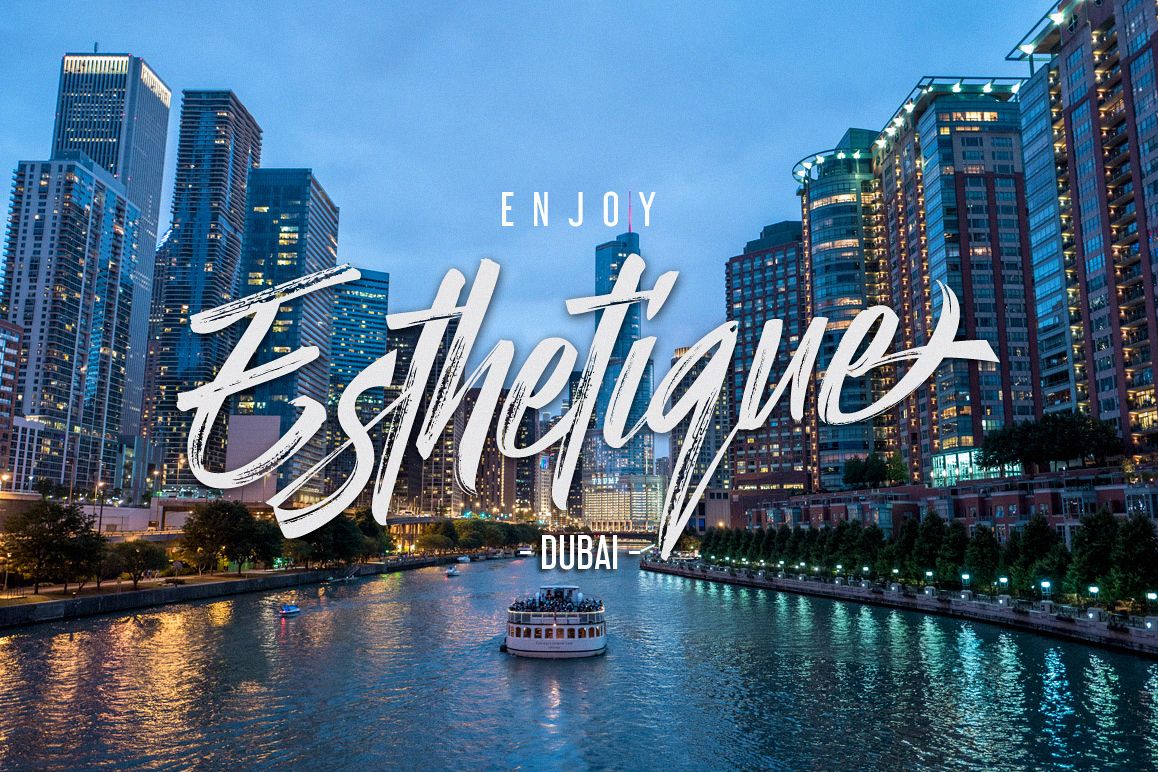
Better Rattler. Handdrawn typeface comes in two styles, Clean and Rough. Realistic quick dry stroke gives natural performance to the font.Perfect for designing book covers, film covers, apparel, cards, logos, posters, etc. Opentype features gives you more alternatives in designing. It's also come with webfont.